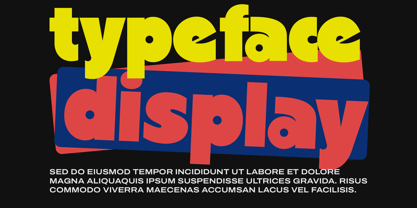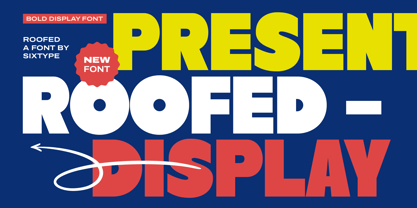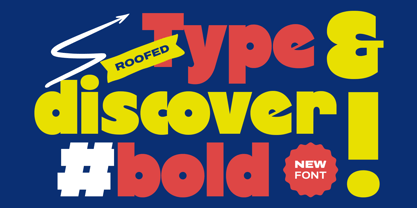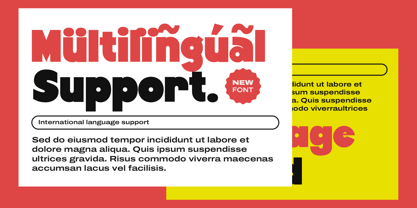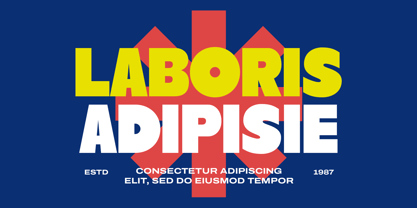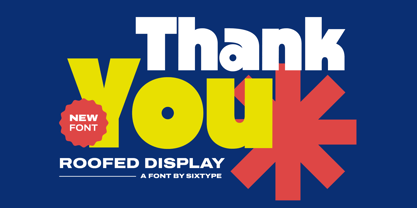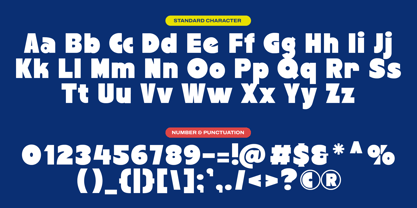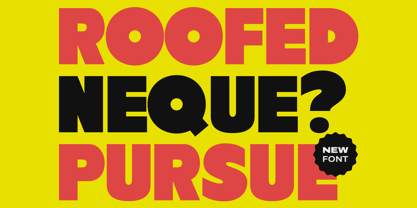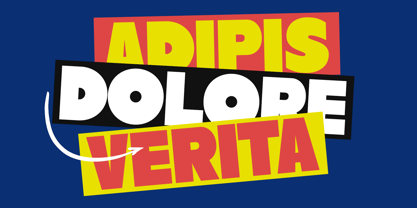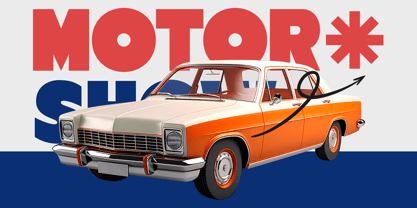
Roofed
by Sixtype Foundry
The Roofed Font Family was designed by and published by Sixtype Foundry. Roofed contains 1 styles. More about this family
Bold Display Font with Playful Confidence, Roofed is a striking display font crafted to make a powerful statement infused with a fun and confident spirit. With its thick strokes, rounded shapes, and captivating proportions, this font ensures high visual impact while maintaining a friendly and approachable demeanor. Its playful design and robust letterforms make Roofed an ideal choice for bold headlines and expressive typography. The font excels at large sizes, ensuring your message stands out clearly and memorably. Featuring complete uppercase, lowercase, numbers, and punctuation, Roofed is tailored for modern designs that aim to convey energy, boldness, and creativity.